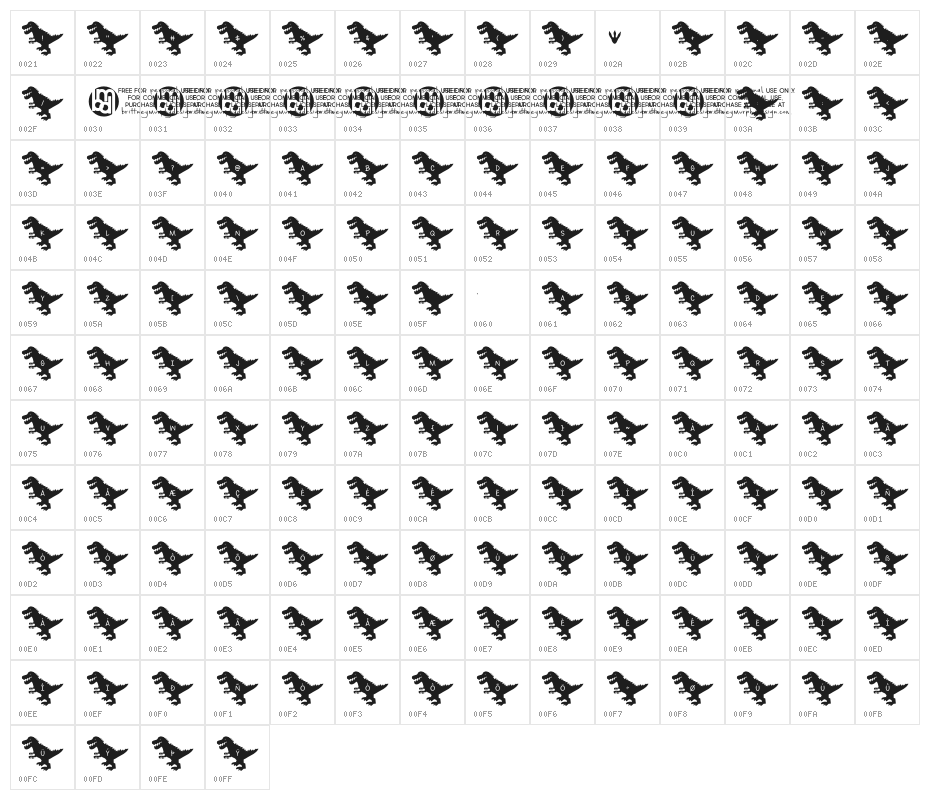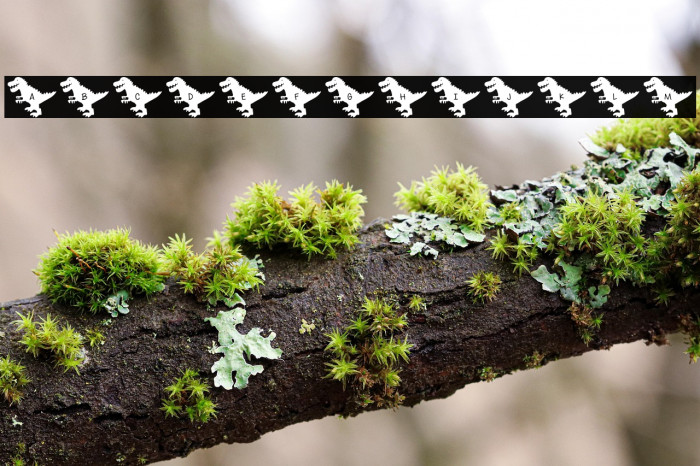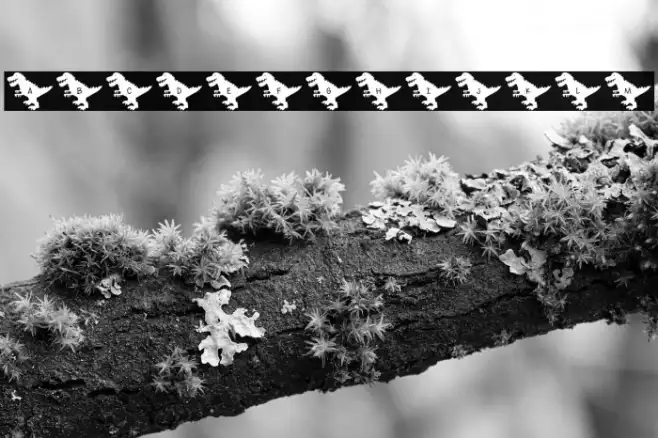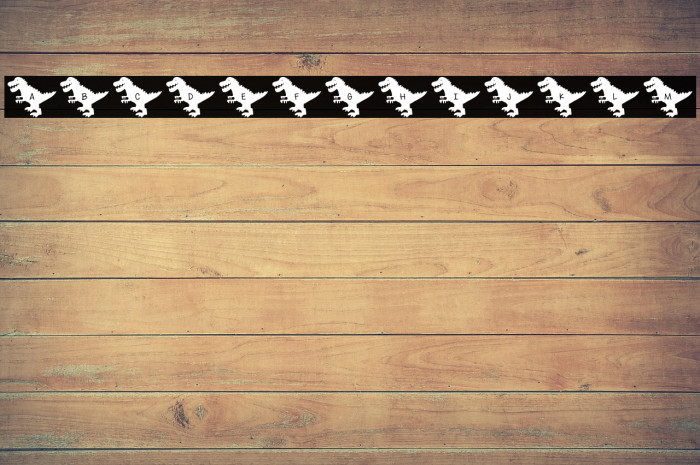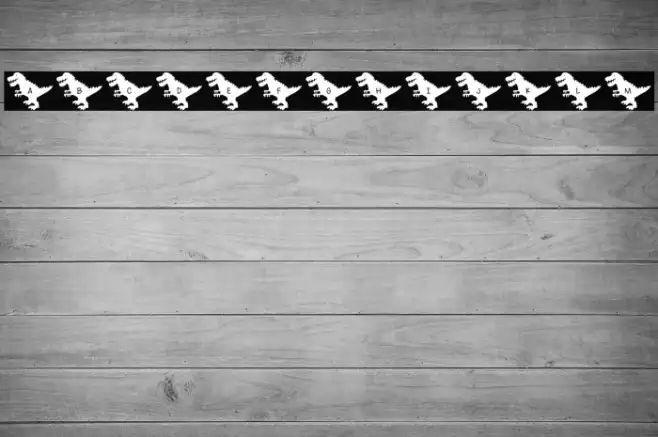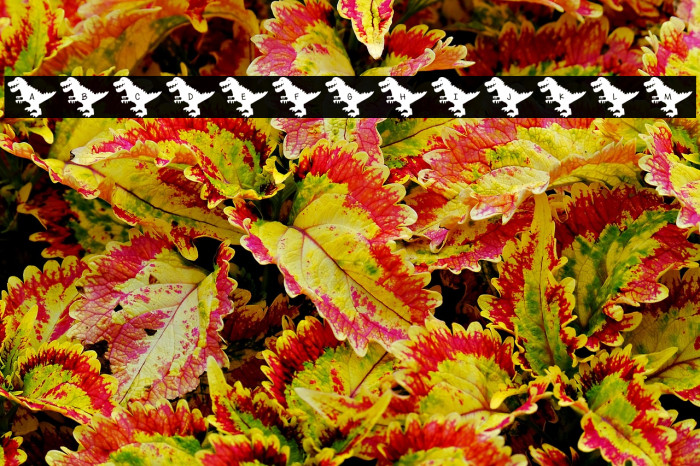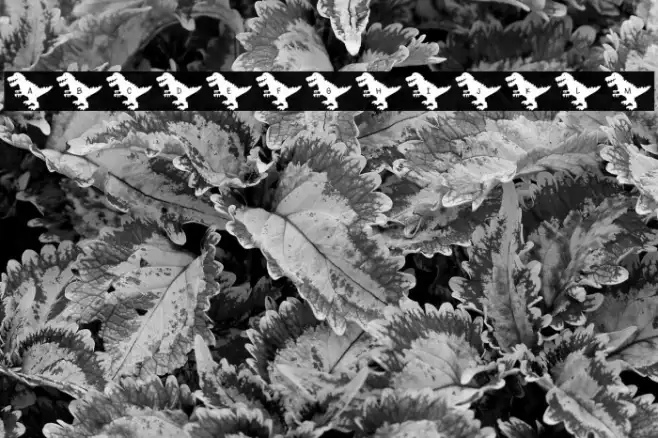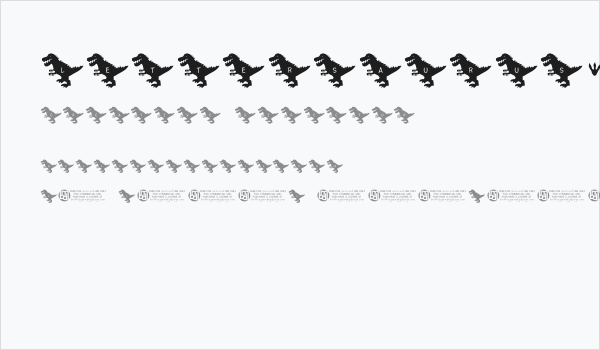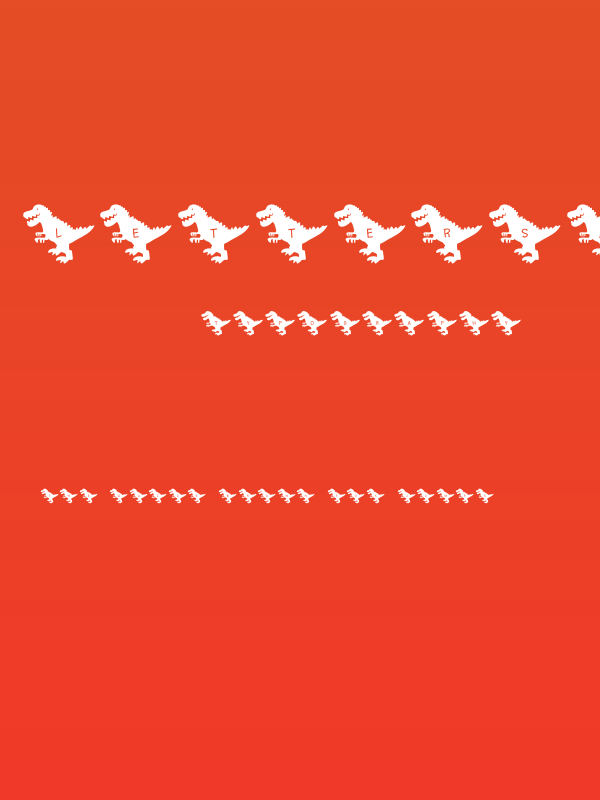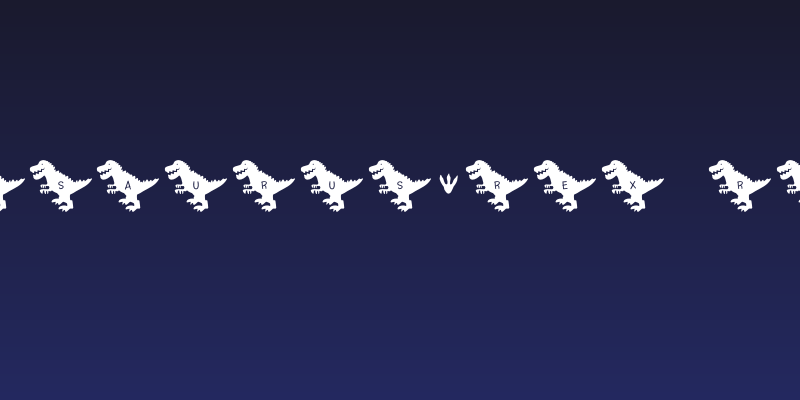
Lettersaurus*Rex Regular Font
Lettersaurus*Rex Regular Description
This playful and whimsical font features each letter and number creatively integrated into the silhouette of a dinosaur, giving it a unique and entertaining appearance. The design is bold and eye-catching, making it suitable for projects that require a fun and engaging visual element. The characters are evenly spaced, ensuring readability while maintaining the novelty aspect. This font is perfect for children's materials, themed events, or any project that aims to capture a sense of adventure and imagination.
| Proposed Projects | Ideal for children's books, educational materials, themed party invitations, and playful branding. |